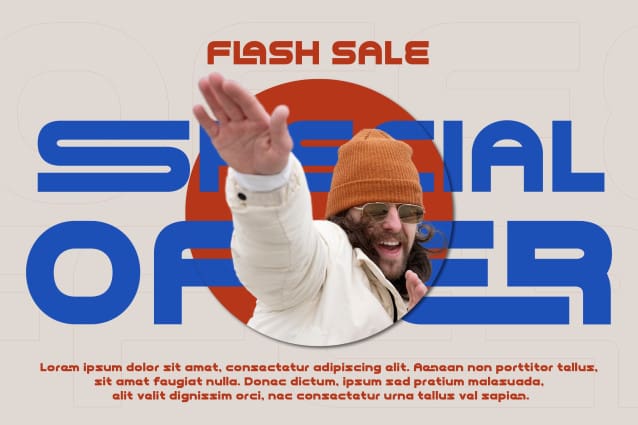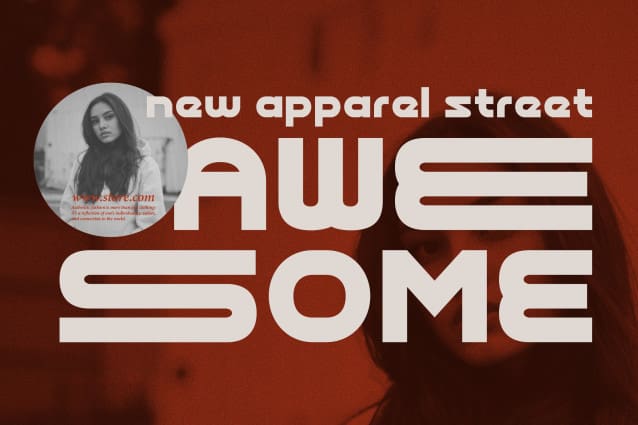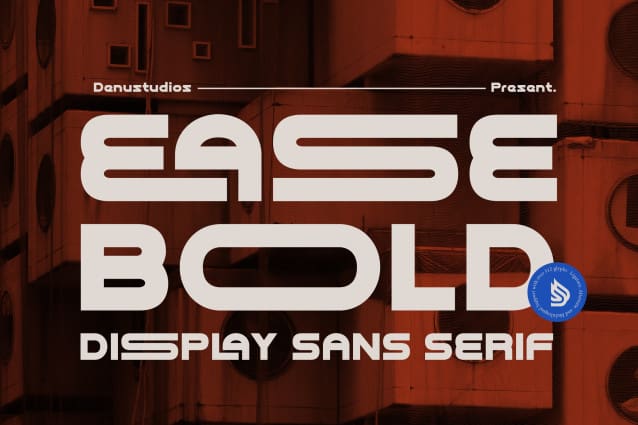
Ease Bold Font
Ease Bold Font | Display Sans Serif, from Denustudios, suitable for any projects such as: logos, branding projects, homeware designs, product packaging, mugs, quotes, posters, shopping bags, t-shirts, book covers, name card, invitation cards, greeting cards, label, photography, watermark, special events, and all your other lovely projects that need a Display Sans Serif taste.